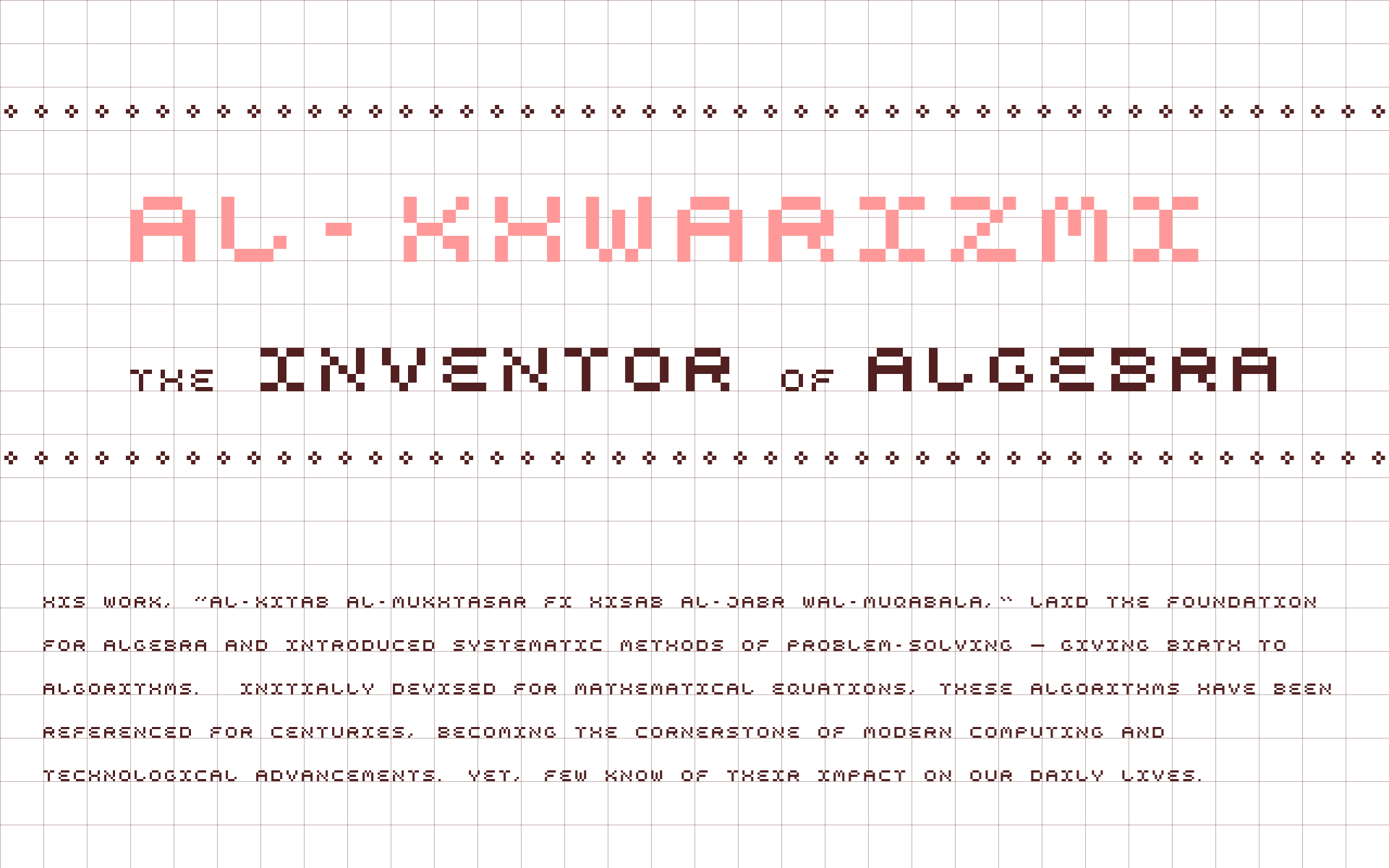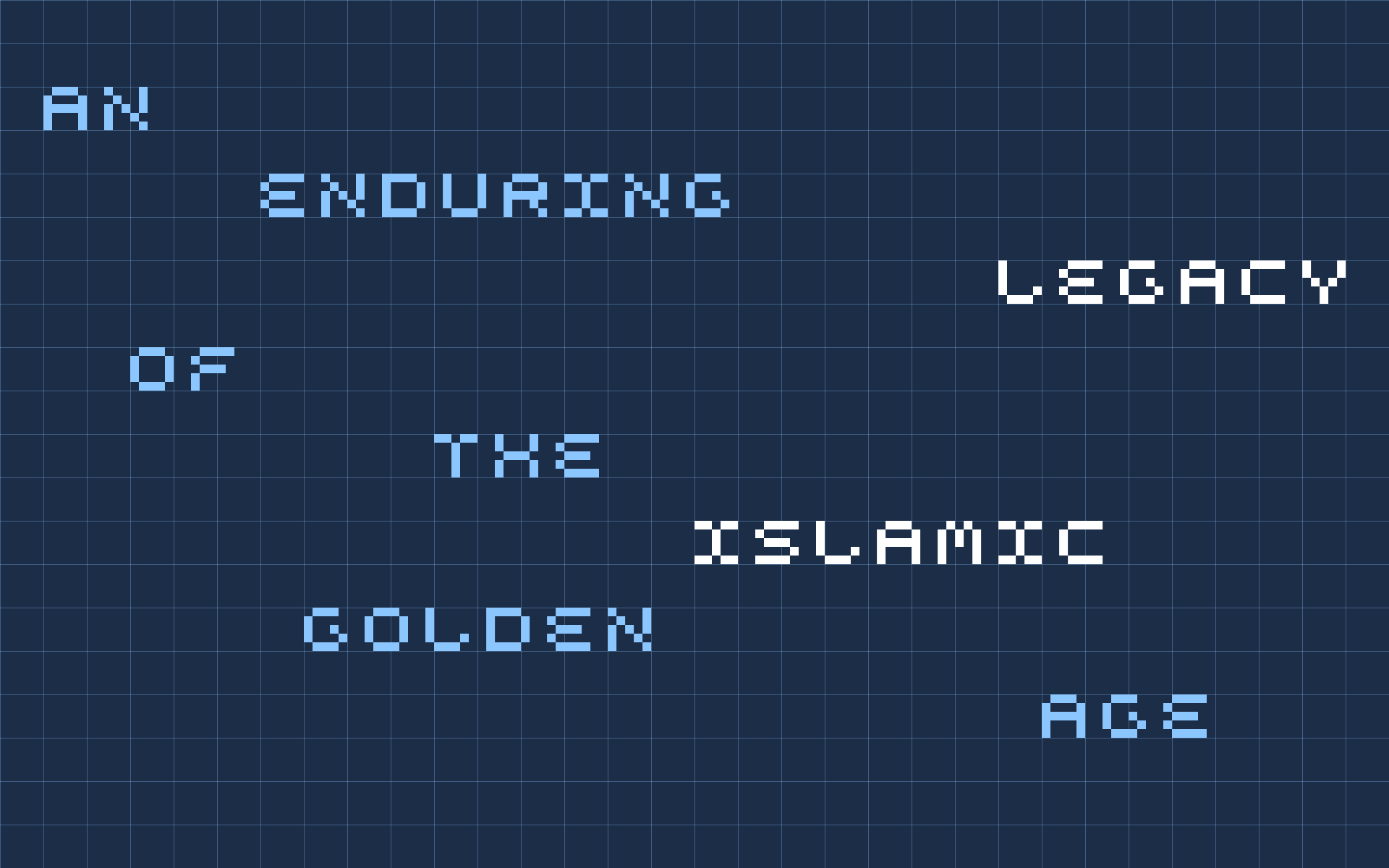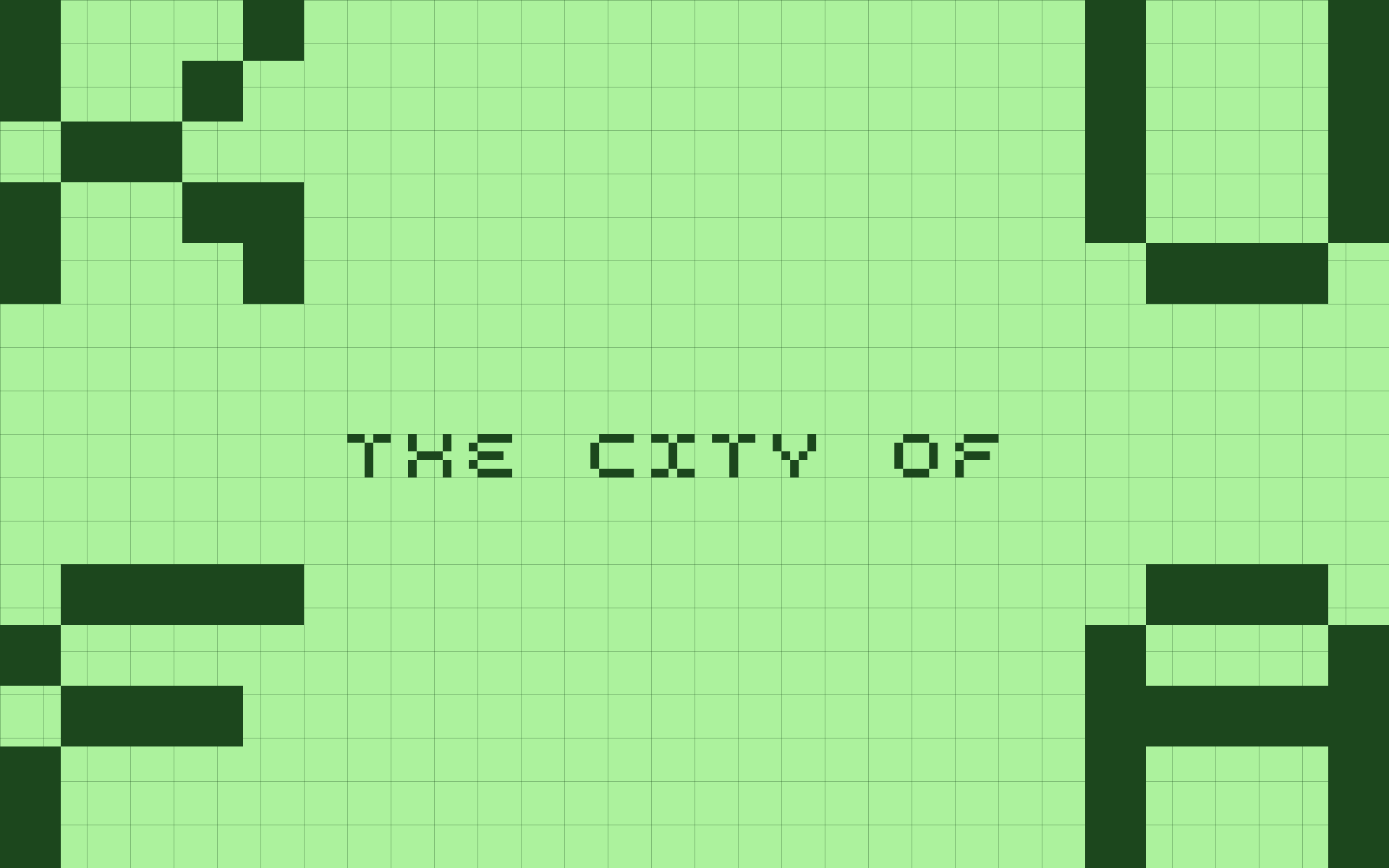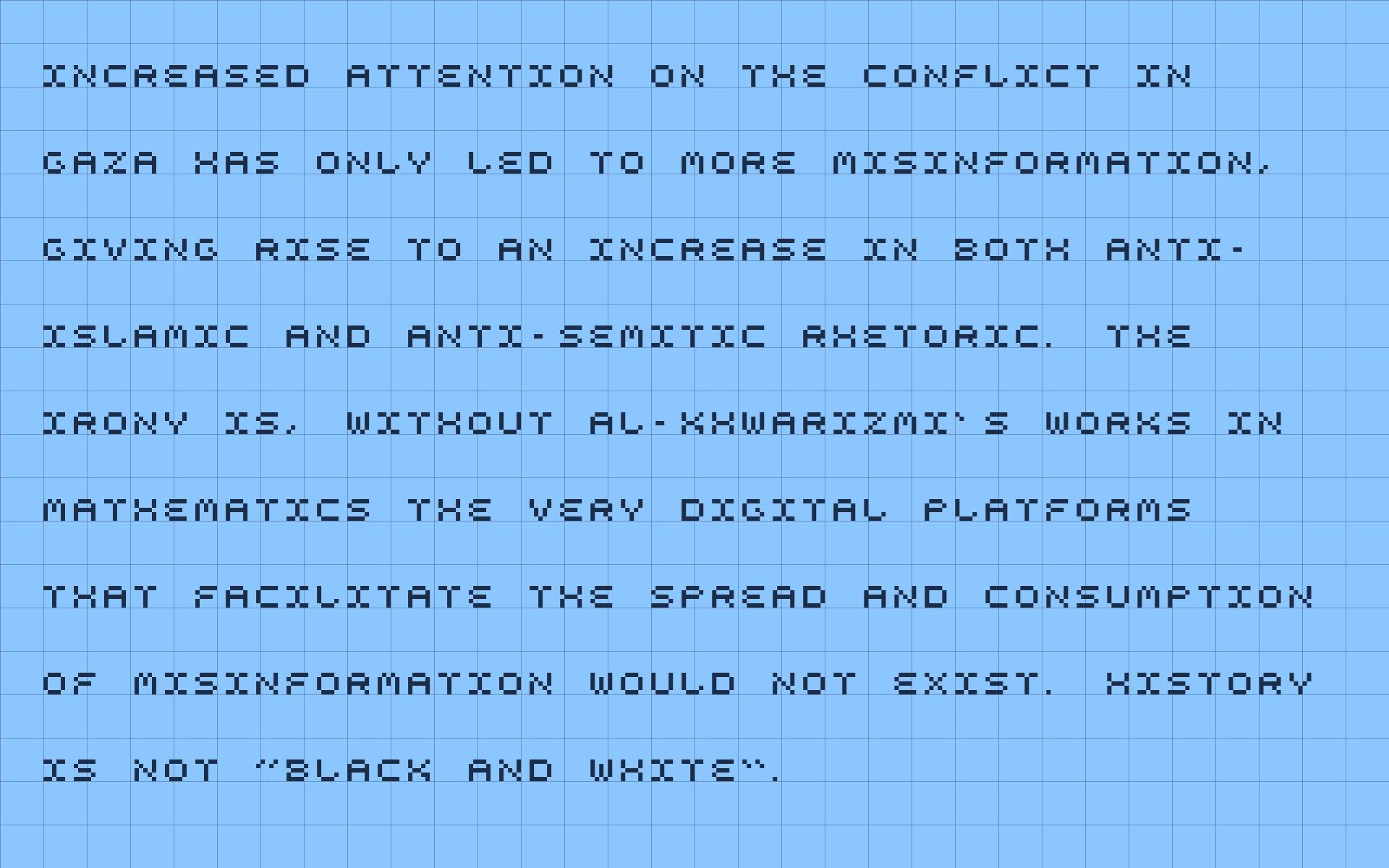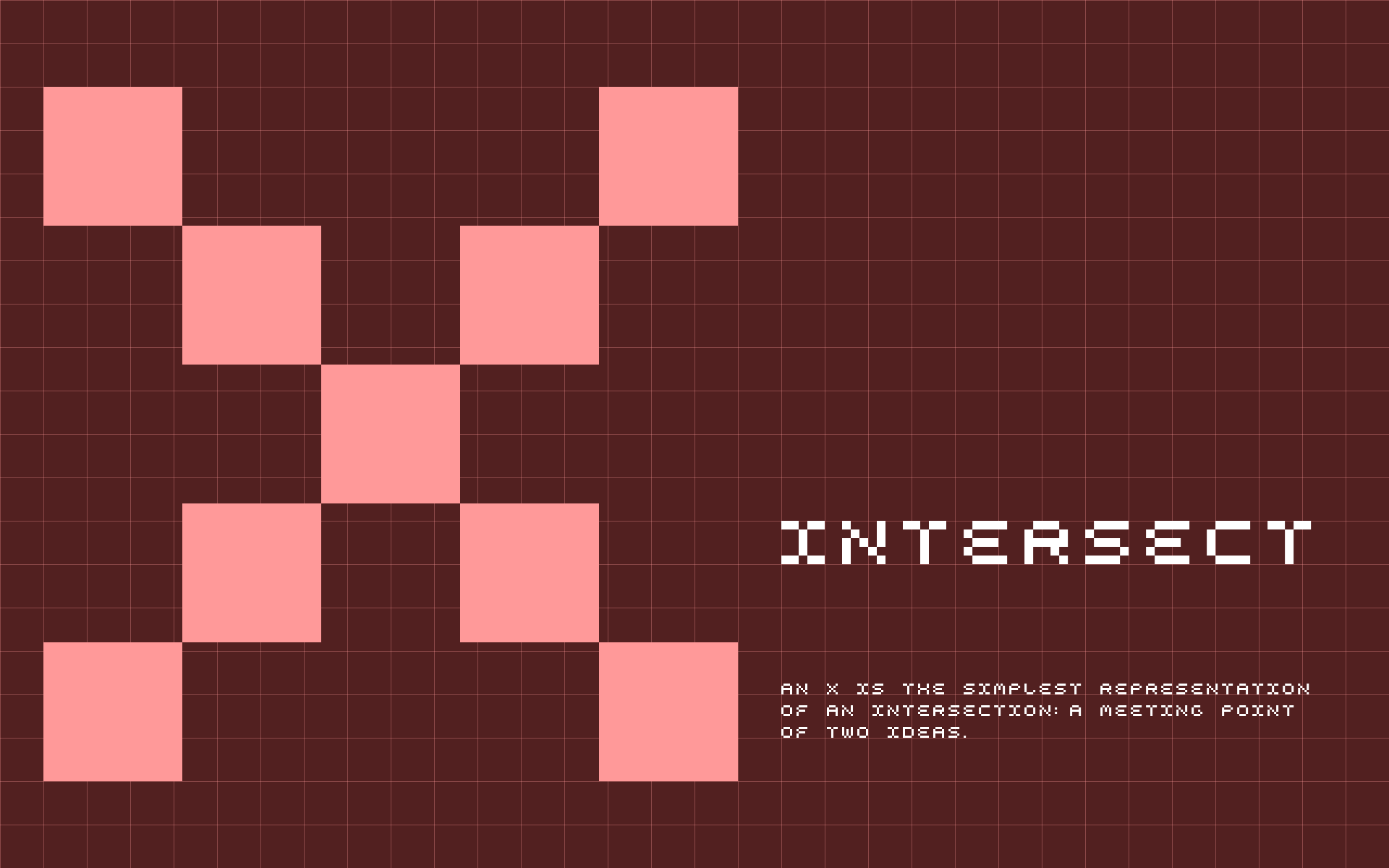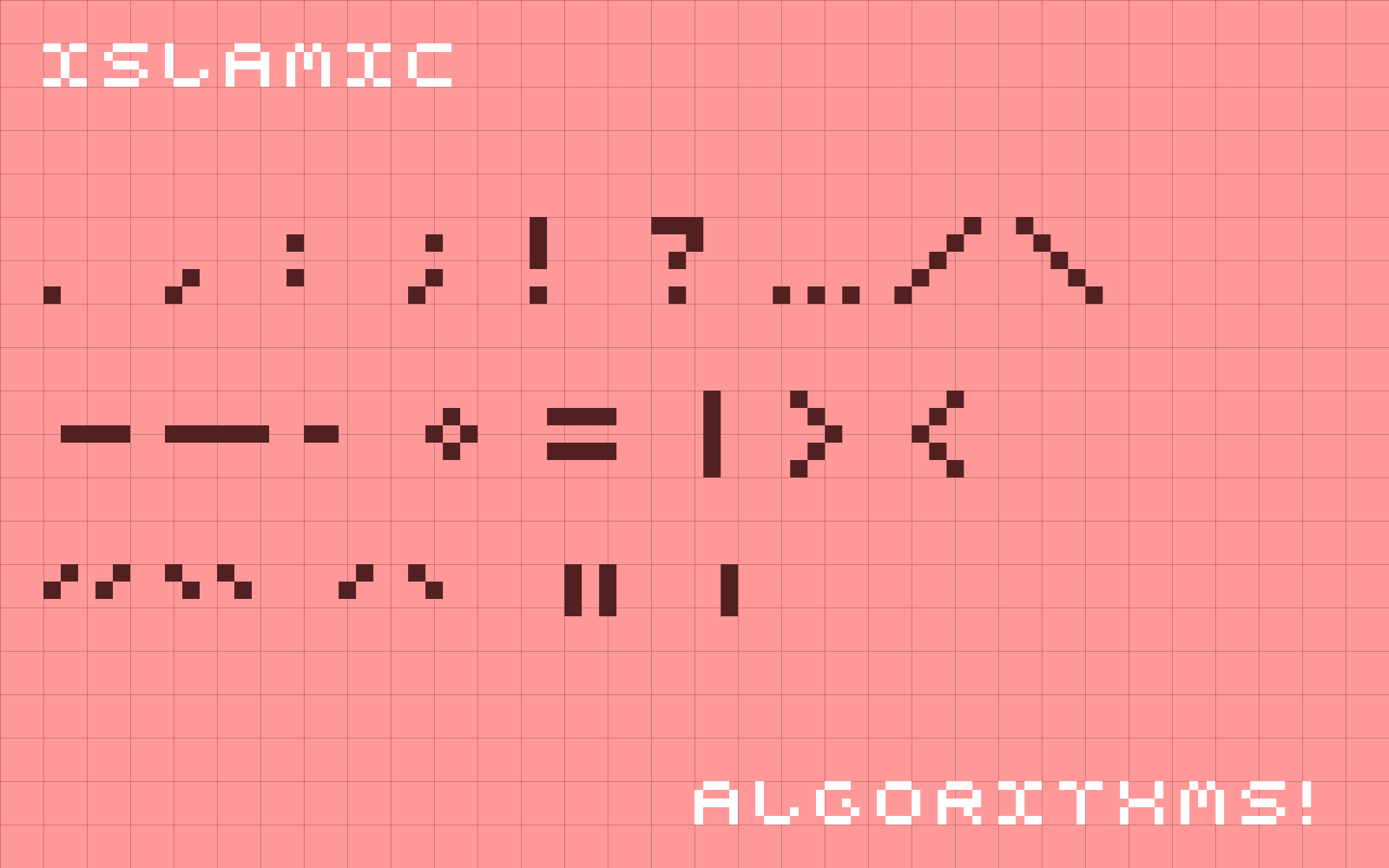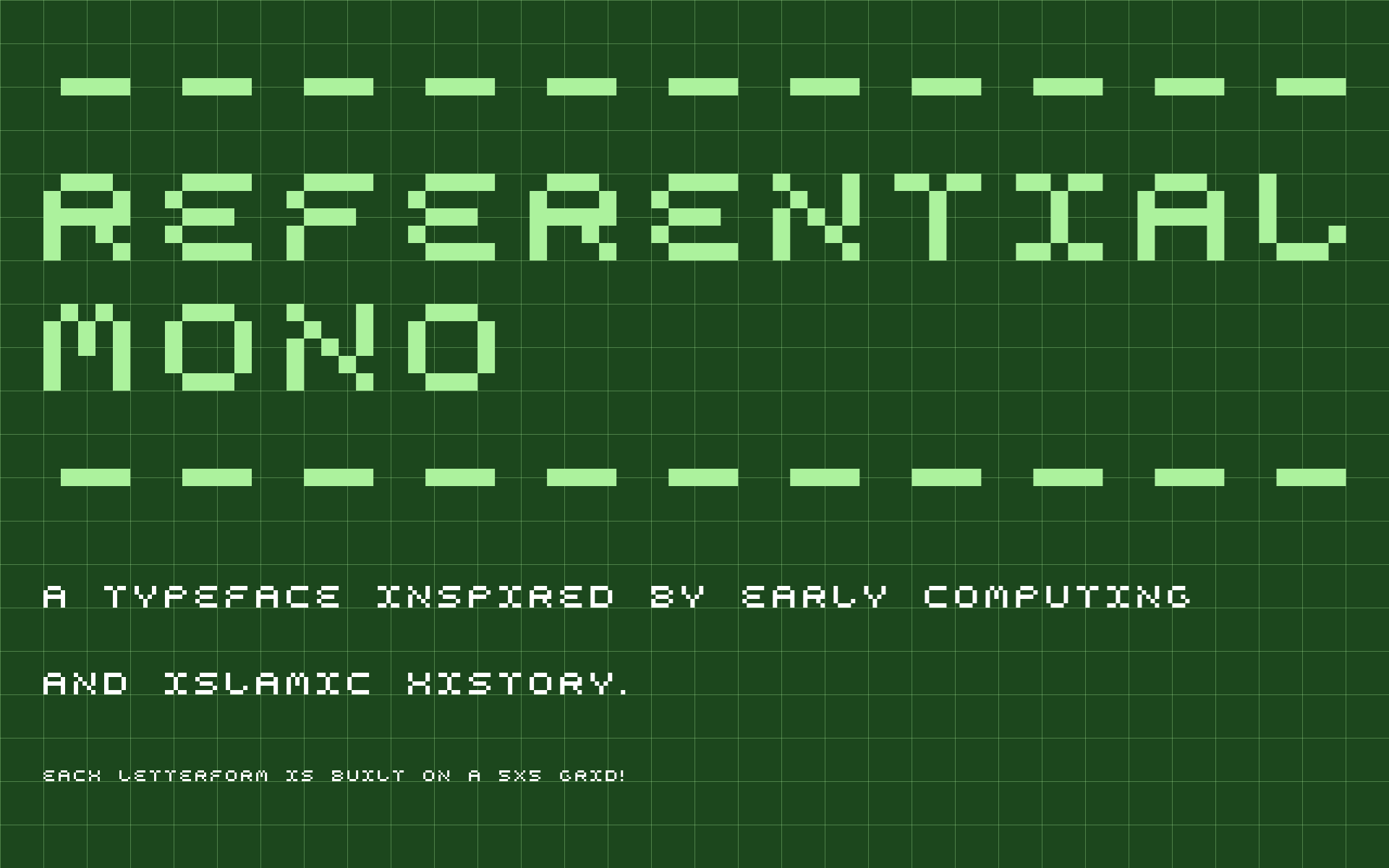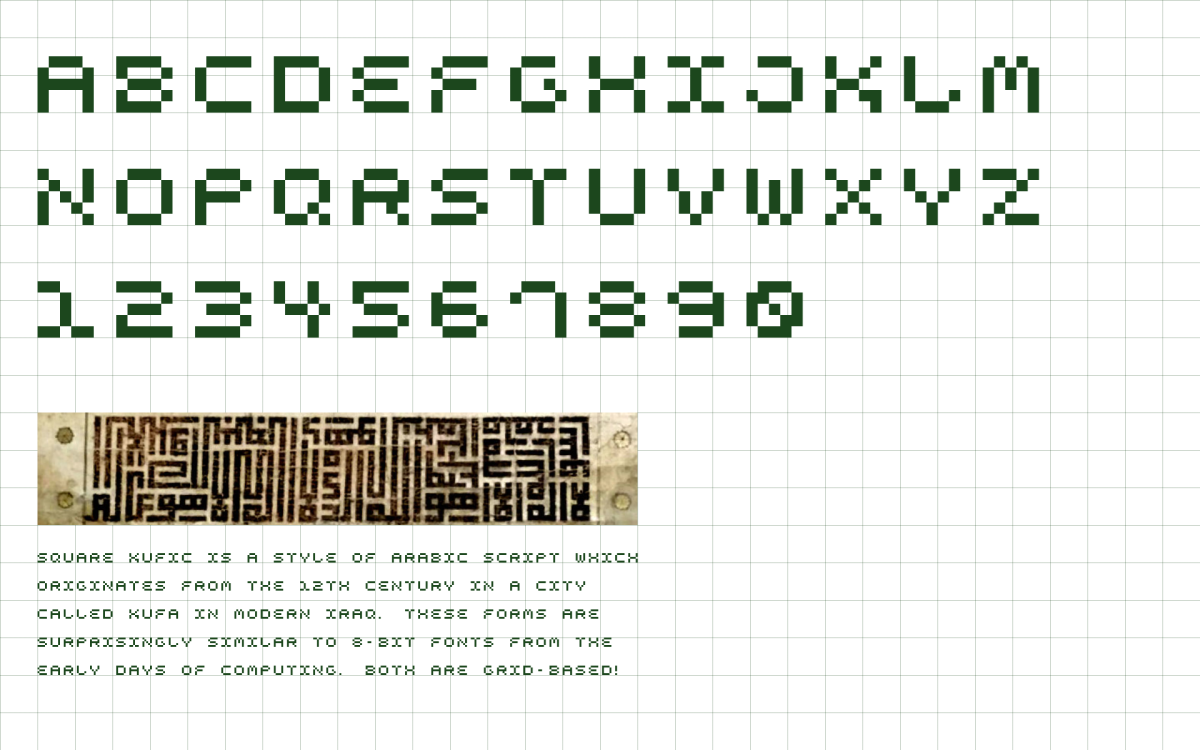
Referential Mono Typeface
Referential Mono is built on a 5x5 grid, inspired by early computing and Islamic History. As a developer and Muslim, this typeface was an opportunity to combine many aspects of my identity in one project.